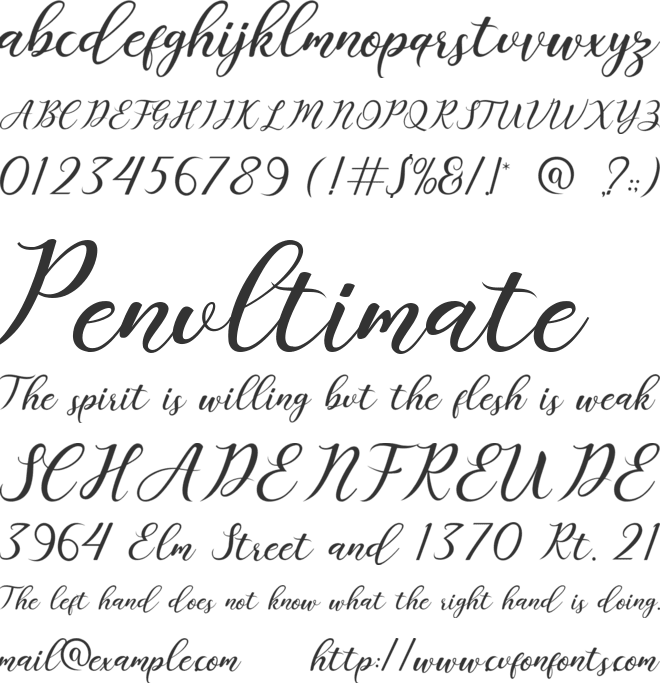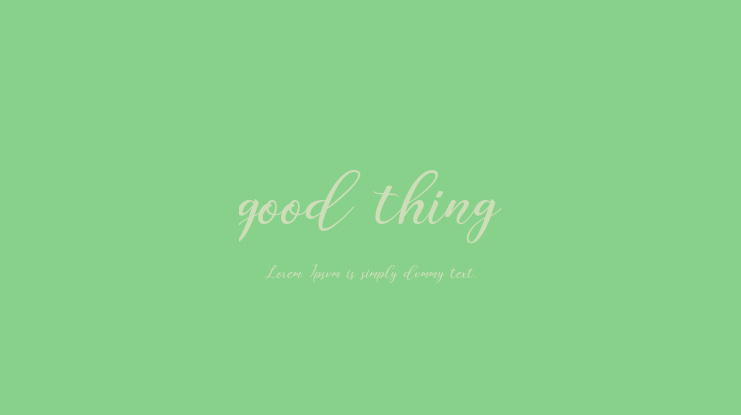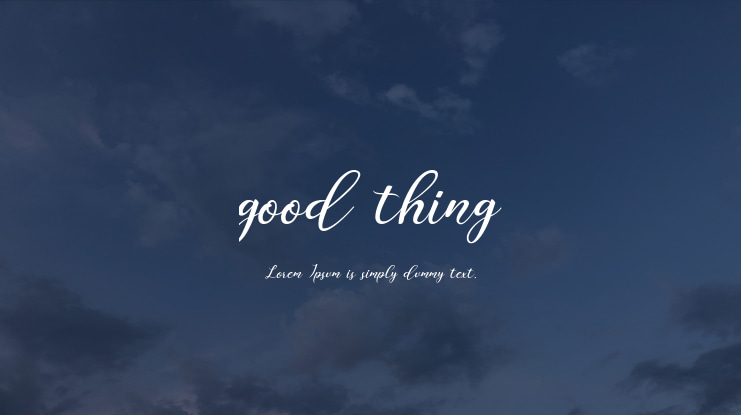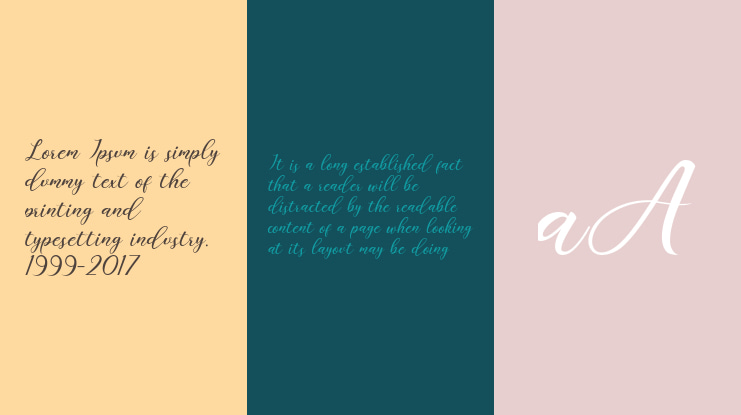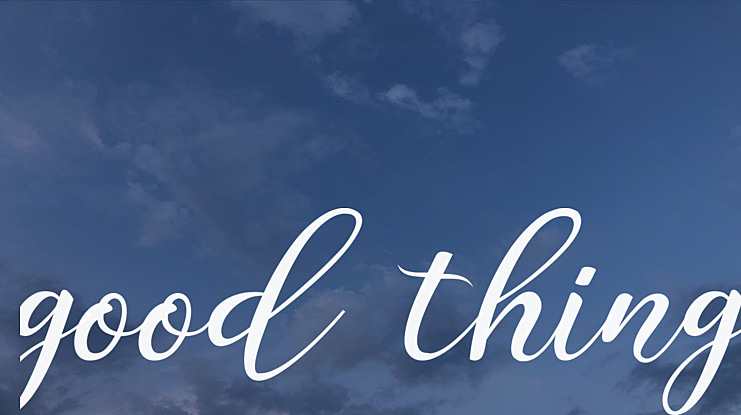
Good thing is a vintage inspired calligraphy script font, perfect for that elegant touch needed for logos, wedding invitations, modern websites, greeting cards, and more! This font is PUA encoded which means you can access all of the glyphs and swashes with ease!NOTE:By installing or using this font, you are agree to the Product Usage Agreement:- This font is already FULL VERSION and ONLY for PERSONAL USE. NO COMMERCIAL USE ALLOWED!- Here is the link to purchase commercial license: https://www.creativefabrica.com/product/good-thing-2/ref/397078/- Any donation are very appreciated. Please visit our store for more amazing fonts : https://www.creativefabrica.com/designer/rezastudio Thank you.-------------------INDONESIA: Dengan meng-install font ini, anda dianggap mengerti dan menyetujui semua syarat dan ketentuan penggunaan font dibawah ini:- Font demo ini hanya dapat digunakan untuk keperluan "Personal Use"/kebutuhan pribadi, atau untuk keperluan yang sifatnya tidak "komersil", alias tidak menghasilkan profit atau keuntungan dari hasil memanfaatkan/menggunakan font kami. Baik itu untuk individu, Agensi Desain Grafis, Percetakan, Distro atau Perusahaan/Korporasi.- Silakan gunakan lisensi komersial dengan membeli melalui link ini : https://www.creativefabrica.com/product/good-thing-2/ref/397078/- Dengan hanya lisensi "Personal Use", DILARANG KERAS menggunakan atau memanfaatkan font ini untuk kepeluan Komersial, baik itu untuk Iklan, Promosi, TV, Film, Video, Motion Graphics, Youtube, Desain kaos distro atau untuk Kemasan Produk (baik Fisik ataupun Digital) atau Media apapun dengan tujuan menghasilkan profit/keuntungan.- Untuk penggunaan keperluan Perusahaan/Korporasi silakan menggunakan Corporate License.- Menggunakan font ini dengan lisensi "Personal Use" untuk kepentingan Komersial apapun bentuknya TANPA IZIN dari kami, akan dikenakan biaya CORPORATE LICENSE.Terima kasih.